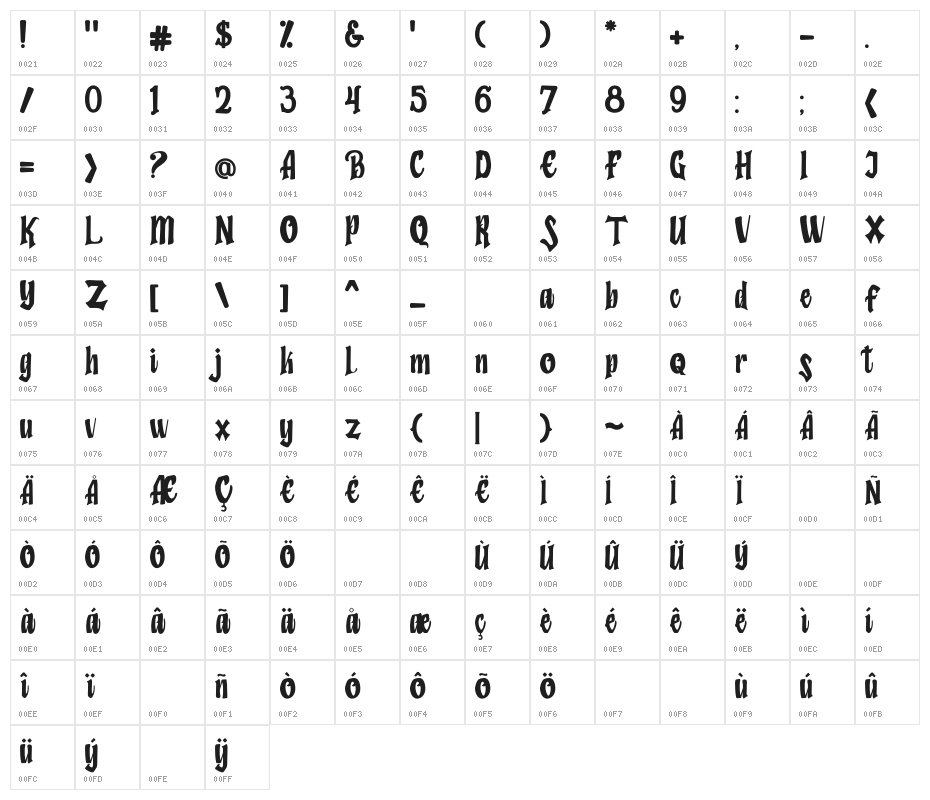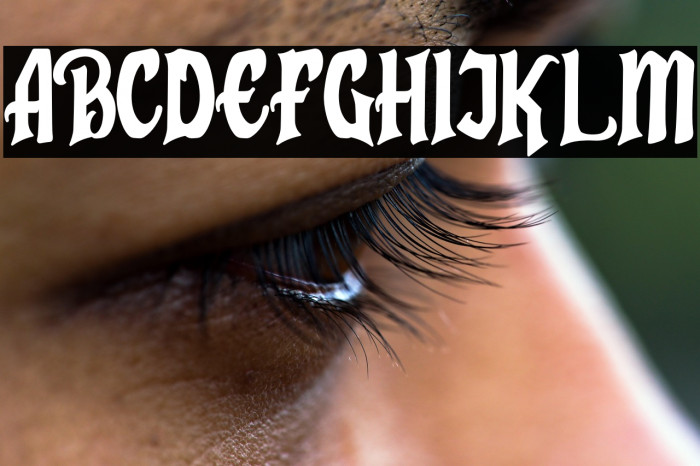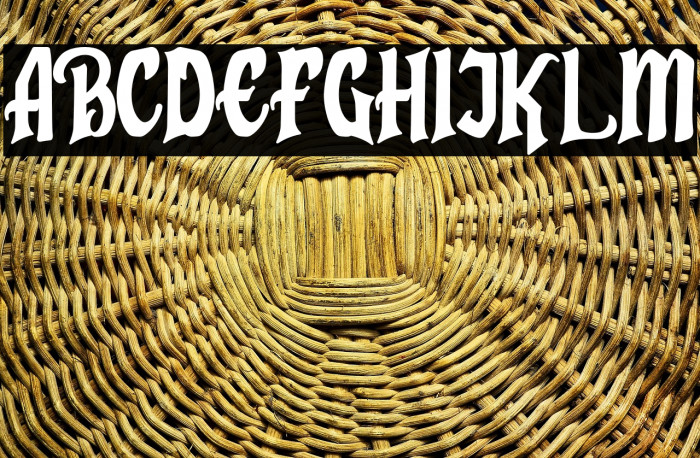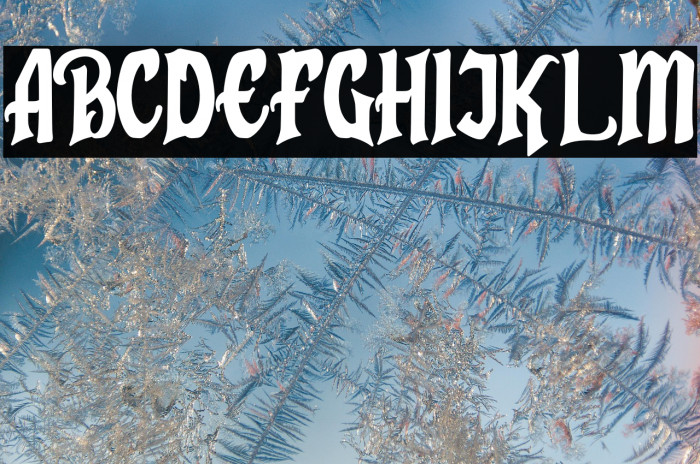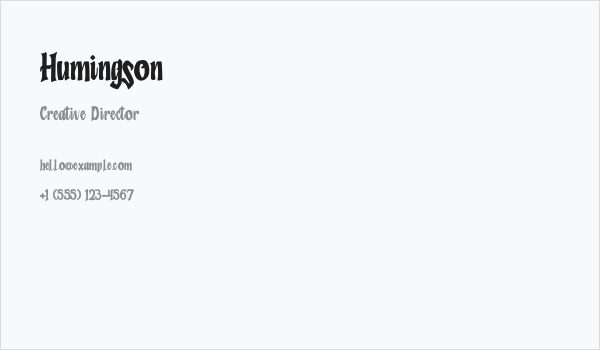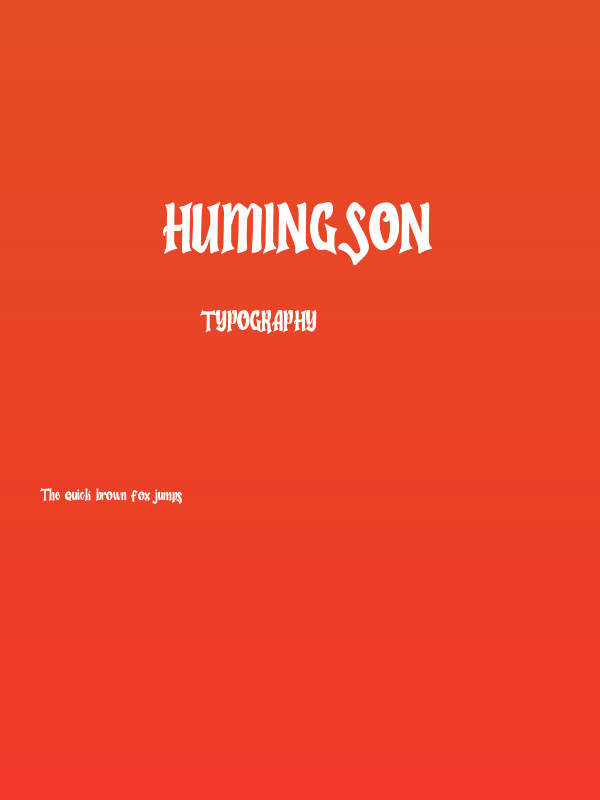
Humingson Font
Humingson Description
This font exhibits a bold and dramatic style, reminiscent of traditional Blackletter typefaces. The characters are characterized by sharp, angular lines and a strong presence, making it ideal for creating a striking visual impact. The uppercase letters are particularly ornate, with intricate details that add to the overall decorative appeal. The lowercase letters maintain the same boldness, ensuring consistency throughout the text. The numerals and special characters are equally bold, complementing the alphabetic characters. This font is perfect for projects that require a historical or gothic aesthetic, such as posters, logos, or book covers.
| Proposed Projects | Ideal for historical-themed designs, gothic posters, logos, and book covers. |